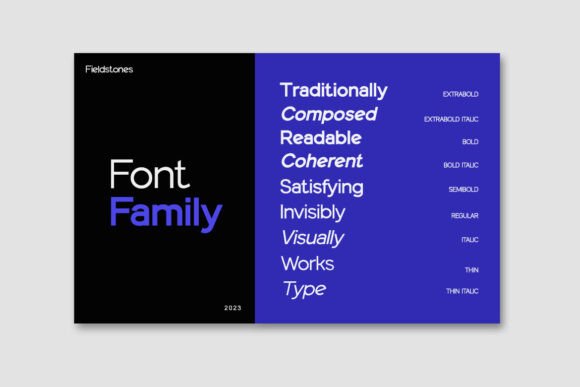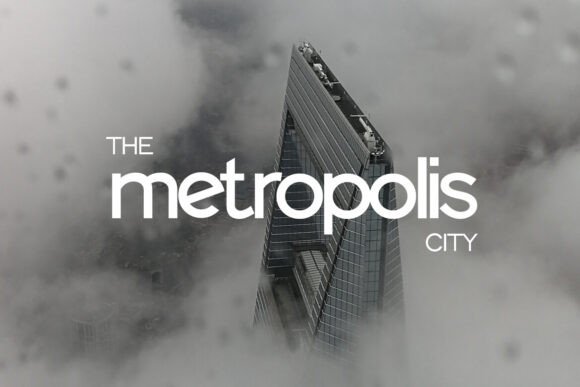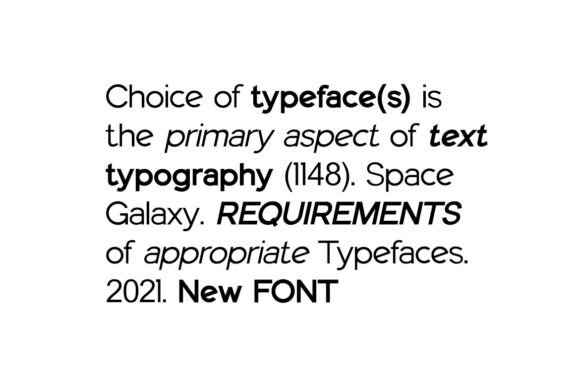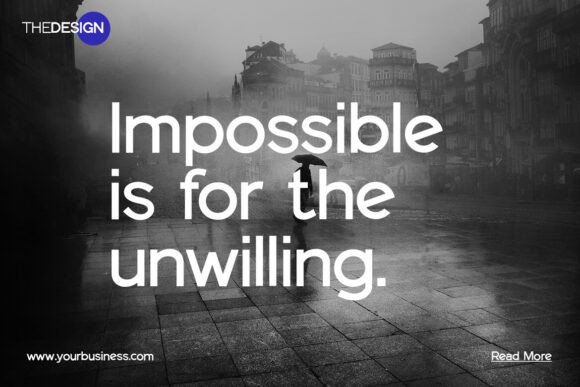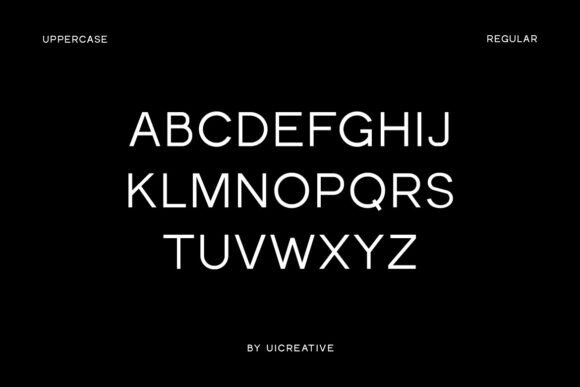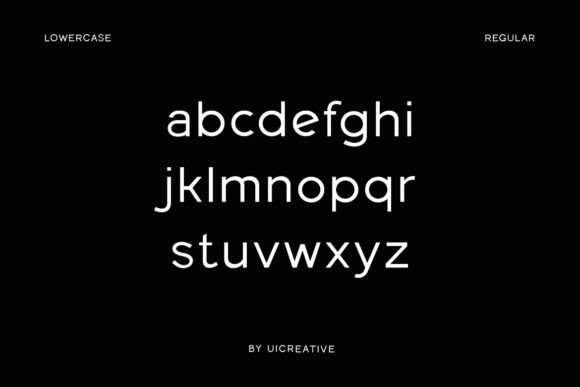
Introducing Fieldstones Font: Elevate Your Designs with Modern Elegance
In the realm of typography, fonts play a pivotal role in conveying the essence of a design. Among the myriad of fonts available, Fieldstones Modern Sans Serif Font stands out for its unique blend of classiness, elegance, and style. This versatile font is designed to cater to a wide array of projects, making it a go-to choice for designers and crafters looking to infuse their creations with a touch of sophistication.
The Essence of Fieldstones Modern Sans Serif Font
Fieldstones Font is characterized by its modern sans serif design, which exudes a sense of cleanliness and simplicity while maintaining an air of elegance. This font is not just a typographical element; it’s a design statement that can elevate the aesthetic value of any project. Whether it’s a logo, a magazine cover, or a website header, Fieldstones Font brings a level of refinement that is hard to achieve with more conventional fonts.
One of the key advantages of Fieldstones Font is its versatility. It is ideally suited for a wide variety of projects, including:
- Signature and Stationery: Add a touch of elegance to your personal or business correspondence.
- Logo Design: Create a lasting impression with a logo that embodies class and sophistication.
- Wedding Typography: Make your wedding invitations, quotes, and decor truly unforgettable.
- Magazine or Book Covers: Stand out on the shelves with a cover that captures the essence of your publication.
- Website Headers: Elevate your website’s design and make a strong first impression.
- Branding: Consistency in branding is key, and Fieldstones Font can help you achieve a cohesive look across all your materials.
Balancing Masculinity and Femininity
Fieldstones Modern Sans Serif Font is unique in its ability to display both masculine and feminine qualities, making it an excellent choice for fashion-related branding or editorial design. This balance allows designers to create pieces that appeal to a broad audience without leaning too heavily into traditional gender norms. It’s perfect for brands that wish to convey a sense of inclusivity and modernity.
Why Choose Fieldstones Font?
Choosing Fieldstones Font for your design projects comes with several benefits:
- Elegance: It adds a touch of class to any design.
- Versatility: Suitable for a wide range of projects.
- Timelessness: A modern font that will remain relevant for years to come.
- Uniqueness: Stands out from more commonly used fonts.
Tips for Using Fieldstones Font
To maximize the impact of Fieldstones Font, consider the following tips:
- Pair it with contrasting fonts: For headings and body text, combining Fieldstones Font with a more traditional serif font can create visual interest.
- Experiment with sizes: The font’s elegance shines at larger sizes, but it can also be effective in smaller sizes for body text.
- Play with colors: While the font itself is elegant, the right color choice can enhance its appeal.
Fieldstones Modern Sans Serif Font is a powerful tool in the arsenal of designers and crafters. Its elegance, versatility, and timeless appeal make it suitable for a myriad of projects. Whether you’re looking to make a statement with a bold logo or add a touch of sophistication to your website, Fieldstones Font is an excellent choice. Embrace the beauty of modern typography and elevate your designs to new heights with Fieldstones Font.